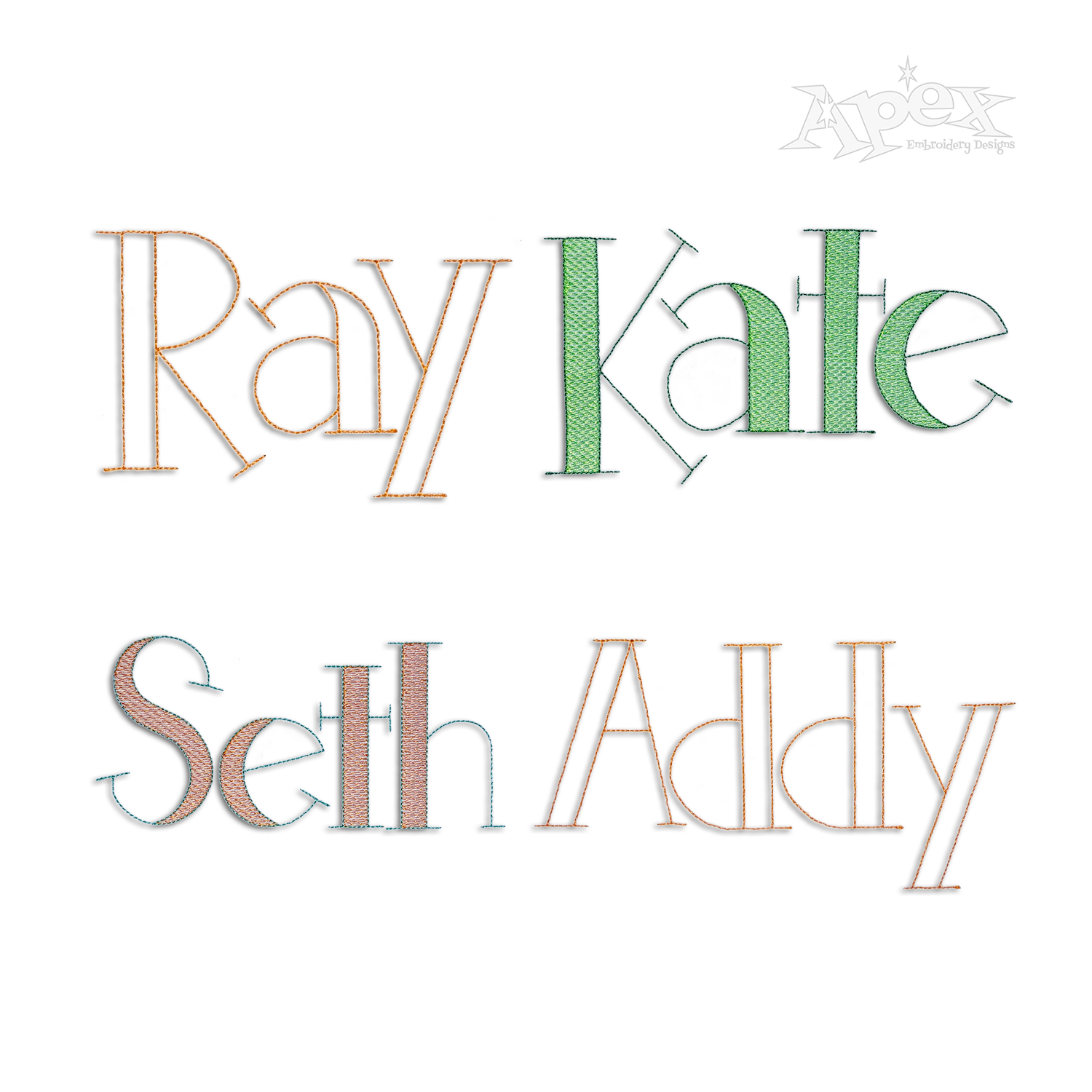
Quinn Sketch Embroidery Font
Quinn was conceived from a desire for effortless modernity?capturing that fresh, breezy, hand-sketched aesthetic that stitches in a heartbeat without sacrificing artisanal charm. In the embroidery studio, we often see heavy satin stitches overpower lightweight textiles; Quinn offers the antidote. Its intentionally open, cross-hatched sketch fill breathes with the weave of your fabric, while clean perimeter framing lends crisp definition to every curve and crossbar. The result is an alphabet with an understated, editorial presence that feels equally at home on sun-washed seaside linen or tailored boutique gifts.
The Quinn collection delivers exceptional versatility with two complete stylistic interpretations: the signature airy Sketch Fill version and the minimalist Outline-Only version. Both variations are digitized across four versatile proportions:
Quinn Sketch Craft & Letterform Details
Digitizing a sketch font demands a master artisan's restraint. Unlike full-density fills that layer thousands of tightly packed threads, Quinn relies on calculated negative space and directional rhythm. Each interior pass is mapped to simulate the relaxed, rapid sweep of an artist?s drawing pen, calibrated with deliberate travel-stitch routing to eliminate unsightly jumps across open fabric areas. The surrounding outline is engineered with precision pull-compensation, holding the letterform's crisp silhouette true against the lighter internal fill. This harmonious balance between light-density shading and structural contour preserves the natural drape of your garments, finishing with soft, pliable touch and swift, seamless machine execution.